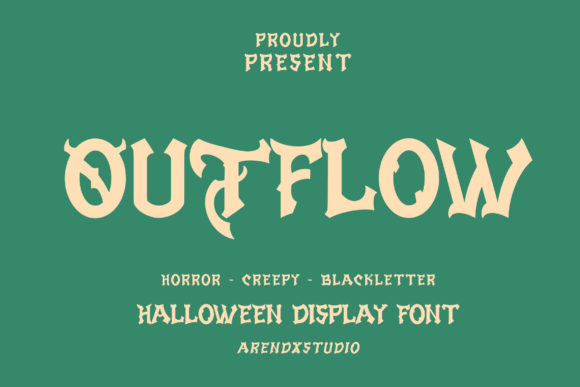
**Outflow: The Quintessential Font for Captivating Designs**
Prepare to make a splash with Outflow, an extraordinary display font that exudes charm, meticulous detailing, and a dash of whimsical flair. It's not just a font; it's a portal to a realm of imagination and creativity. Picture this: your brand's logo radiating an infectious energy that draws attention like a magnet. Or, a children's book bursting with life and laughter, its pages adorned with Outflow's playful spirit. The possibilities are as limitless as your imagination.
Dive into a world where joy and creativity intertwine. Let Outflow's quirky persona lend a touch of whimsy to your movie posters, giving them an unforgettable edge. Unleash its versatility on book covers, ensuring your words dance off the page with an artistic flourish. With Outflow, every creation becomes a masterpiece, capturing hearts and igniting imaginations.
Don't settle for ordinary fonts. Dive into the extraordinary with Outflow. Let your creativity flow, knowing that this font has got your back. It's the perfect companion for those who dare to be different, for those who want to stand out from the crowd. So, embrace the charm of Outflow and let your designs blossom with joy and creativity.